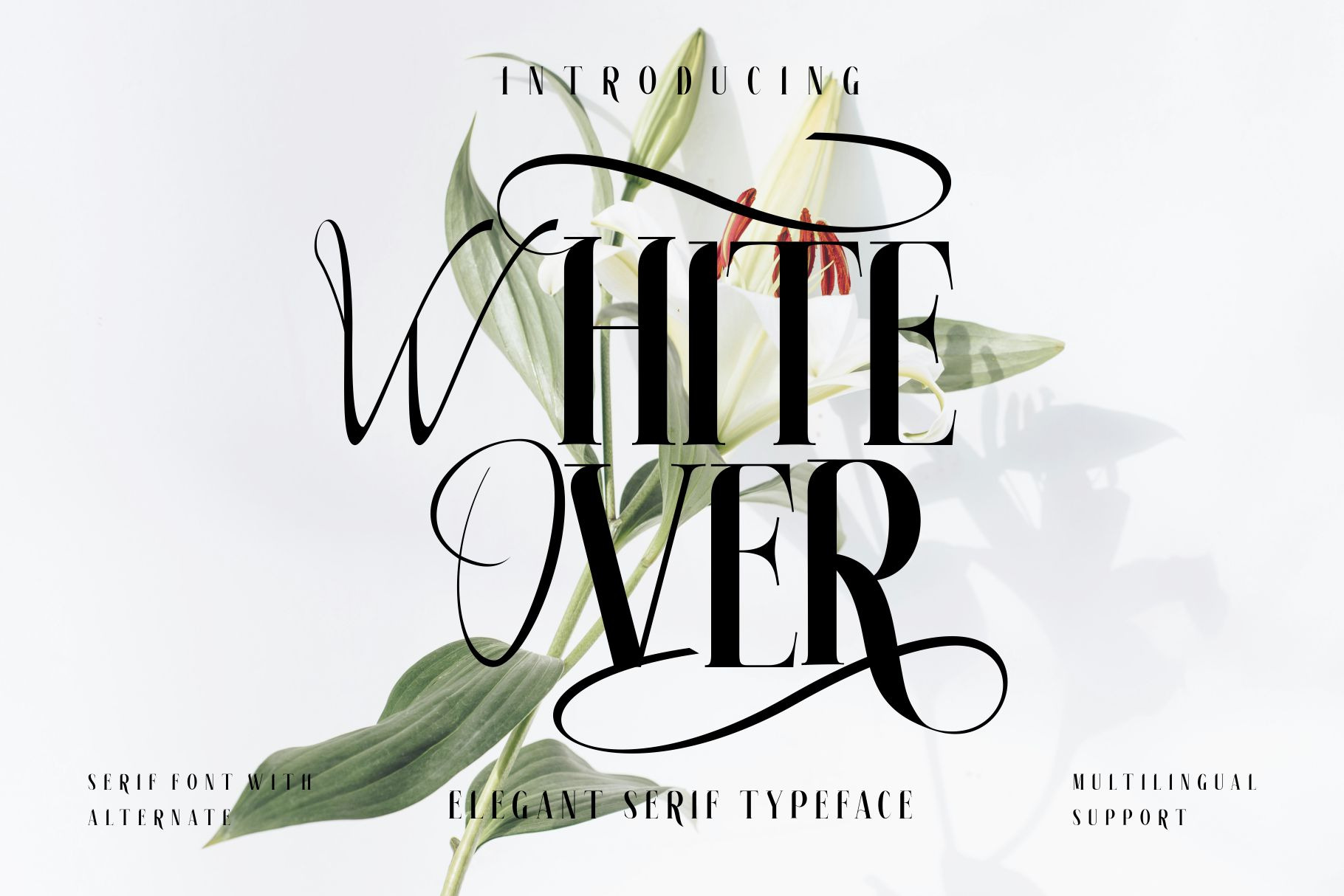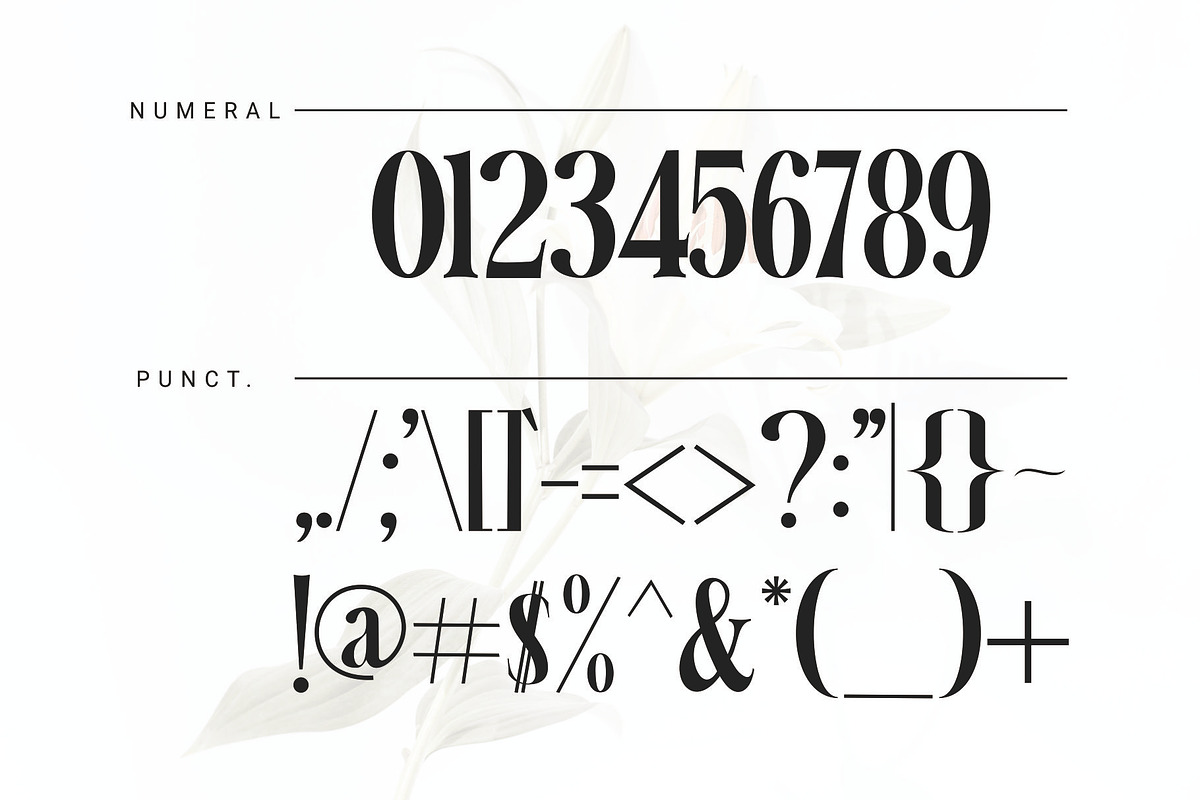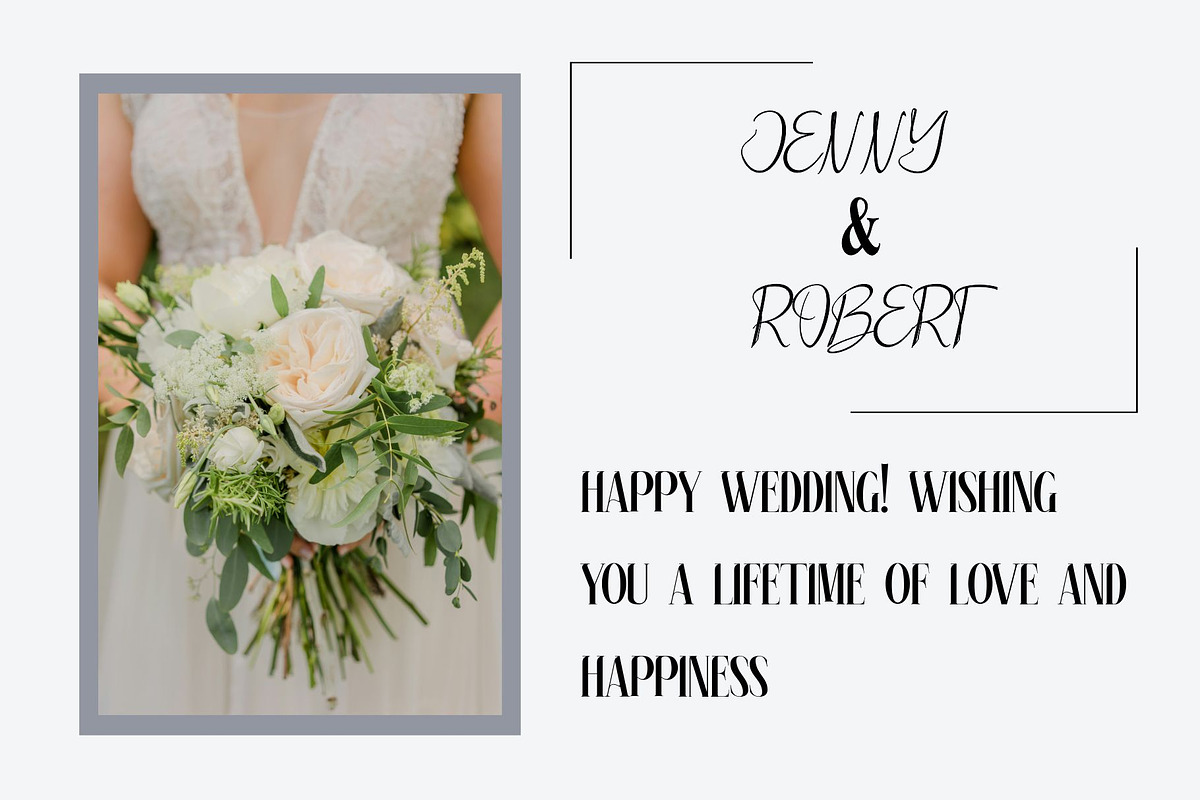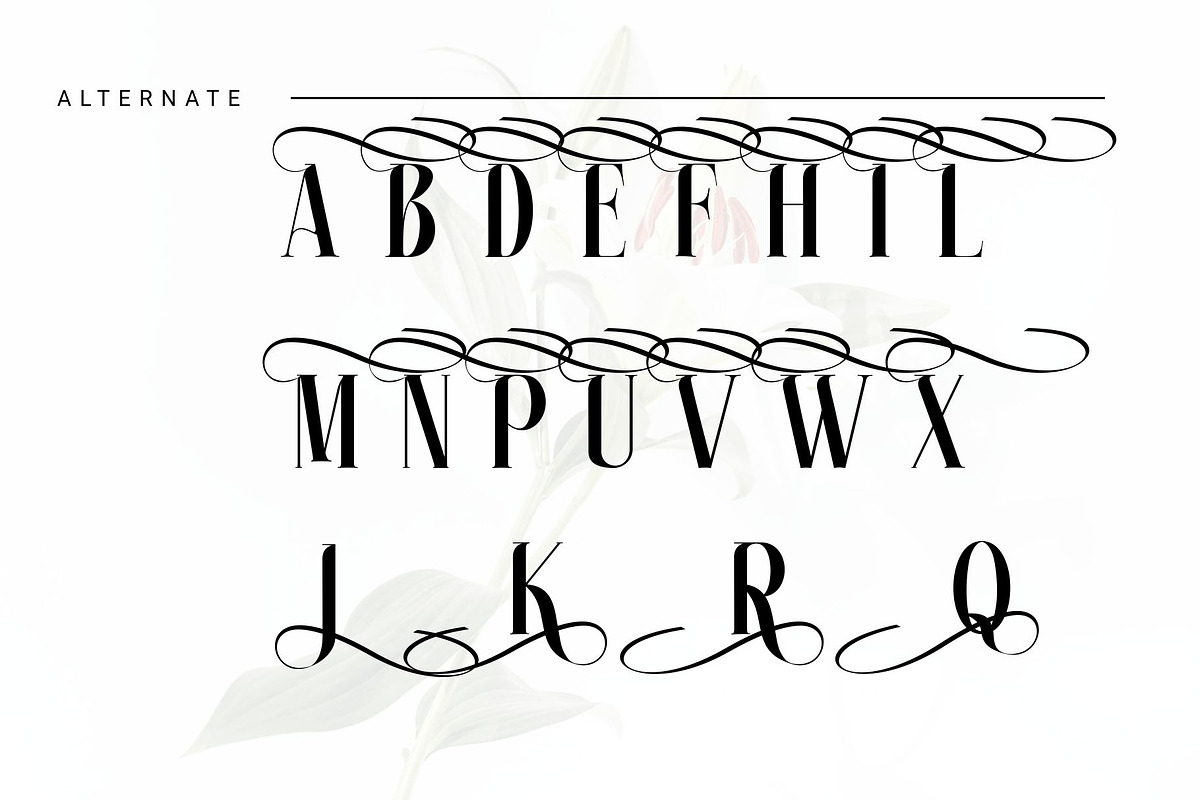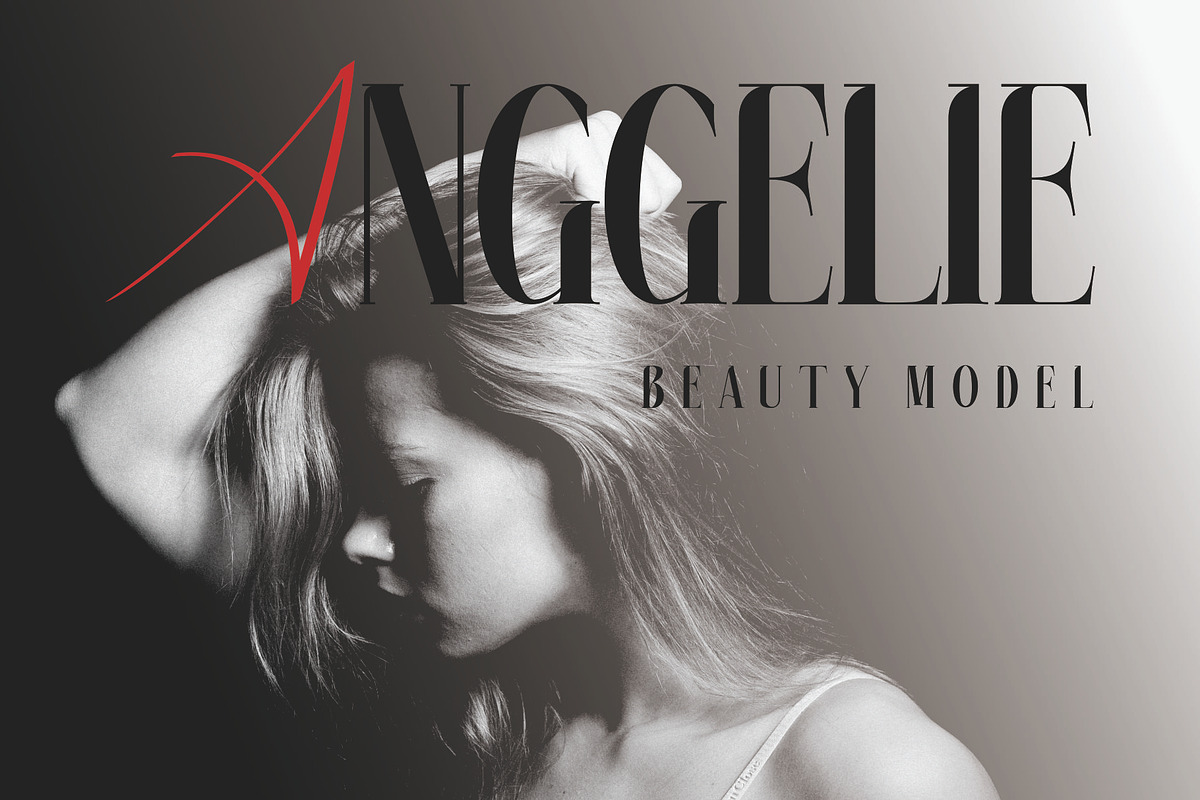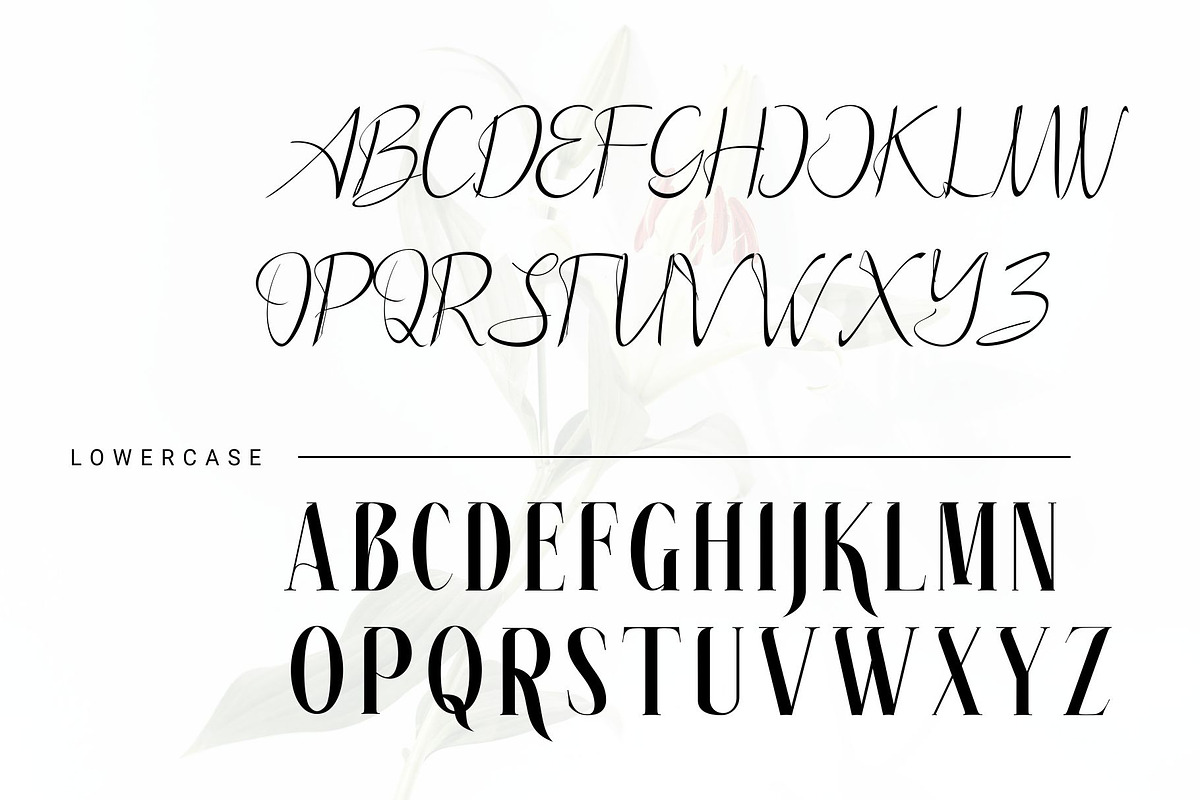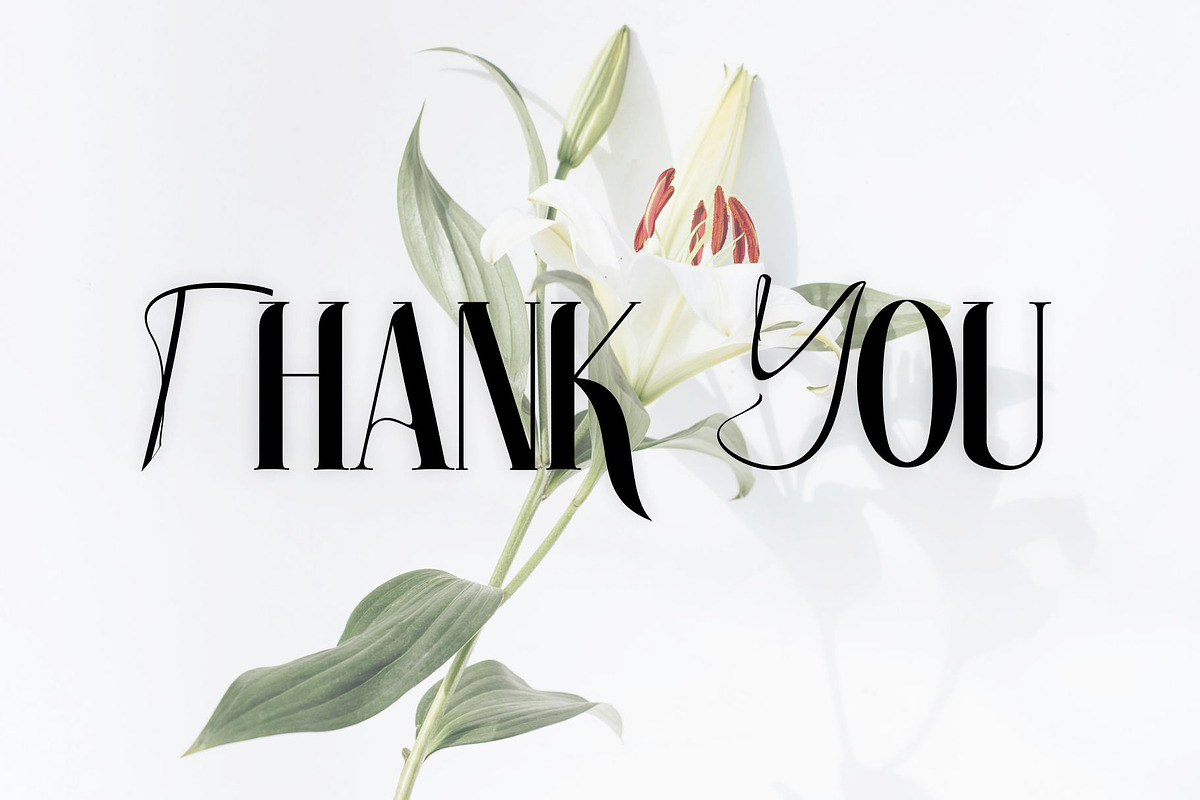
white over font serif
white over font serif fonts with a solid looks bold and also beautiful curves in an alternate characters. A style that we choose as a clean looks of the bold made white over font serif as a unique identity of this fonts. white over font serif also comes with alternative characters that carefully created for adding a minimalist decor of the letters. and it looks right on every character's we've made. Stylistic alternates allows versatile design options